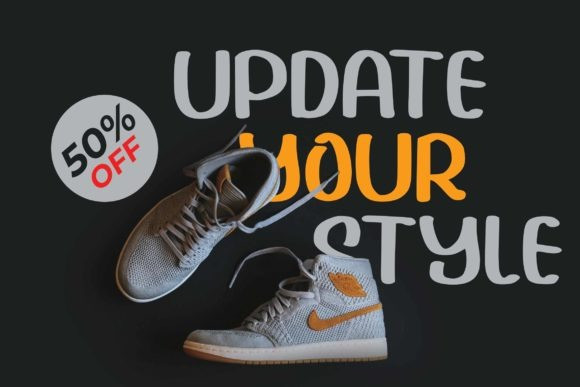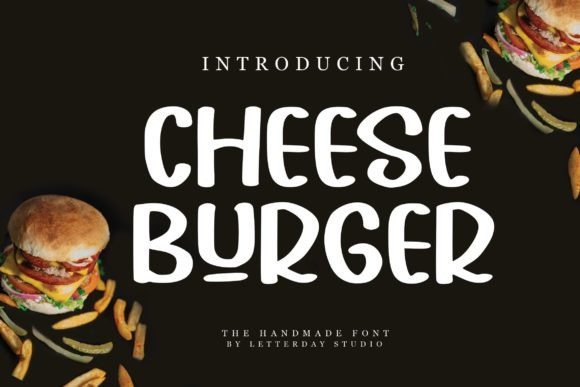
Cheese Burger Font
Cheese Burger Font is a very simple yet elegant font. It looks stunning on wedding invitations, thank you cards, quotes, greeting cards, logos, business cards, and every other design.